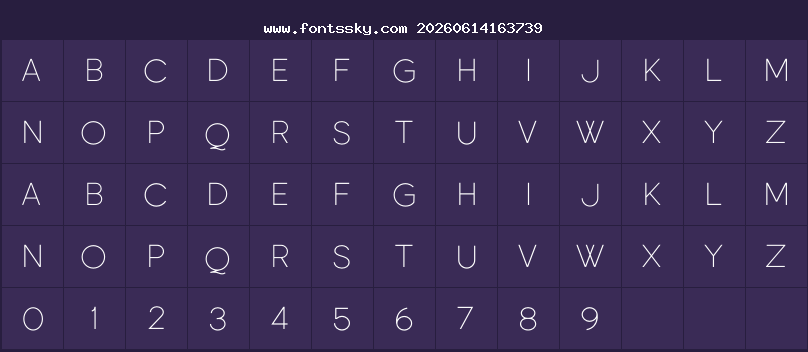
Particle Preview
• Font Name: Particle
• Full Font Name: Particle Regular
• Designer: Jeremy Vessey
• Manufacturer: Graphic Design Freebies x Jeremy Vessey
About Particle.otf
Particle.otf is a modern, elegant sans-serif font designed for ultimate readability and visual harmony. Perfect for branding, headlines, web design, and print materials.